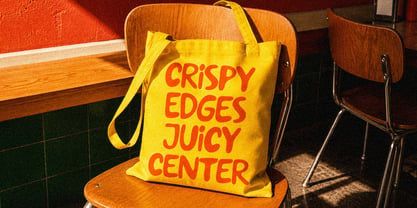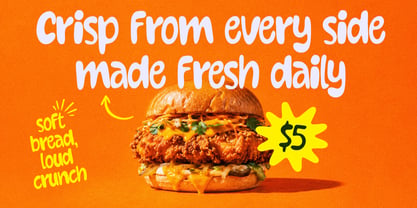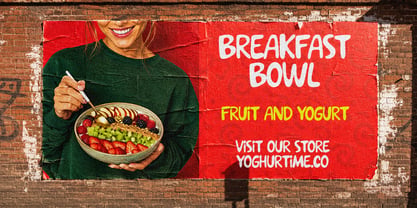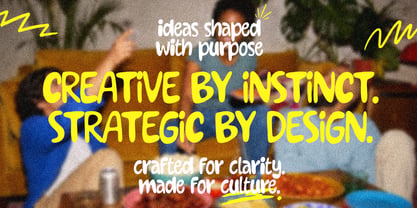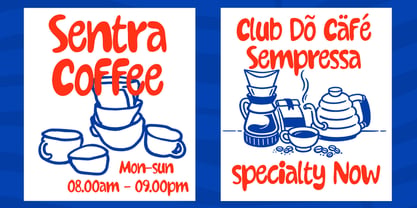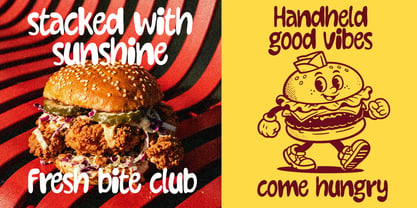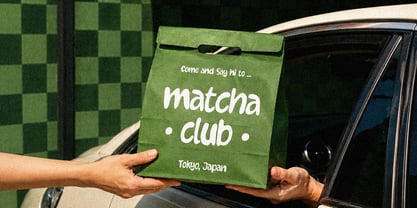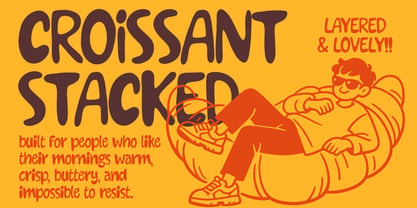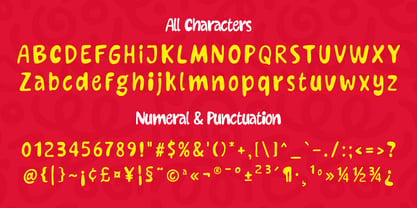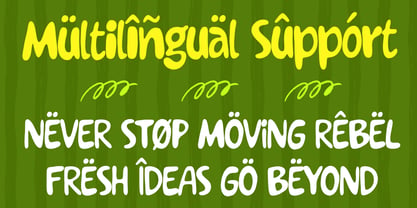
Jellymo
Die Schriftfamilie Jellymo wurde von Wahyudi Mokoagow entworfen und von Yeen Studio veröffentlicht. Jellymo enthält 1 Stile. Mehr über diese Familie
Jellymo is a chunky hand-drawn display font with rounded strokes, soft terminals, and an irregular rhythm that gives the letters a casual, playful feel. Its forms are upright and heavy, with loose handwritten curves, uneven proportions, and friendly shapes that stay readable at large sizes. The uppercase characters feel bold and bouncy, while the lowercase set has a softer, more relaxed texture. Jellymo also includes numerals, punctuation, and accented characters, supporting expressive multilingual layouts. Its visual tone suits posters, food or children’s packaging, merchandise graphics, stickers, headings, and other display settings where a warm handmade style is needed.
Hello, I'm Wahyudi Mokoagow, based in Manado, Indonesia. Yeen Studio, founded in 2019, is a foundry that builds tools and types, basically to showcase and promote its typography. we started making fonts as a hobby in 2019, and focused on handwriting, brush, and blackletter look and fonts because we found them more useful and durable. also try to make things easy and smart for the designers. Apart from fonts, I love all forms of creativity; layout design, UI/UX Design, and more.